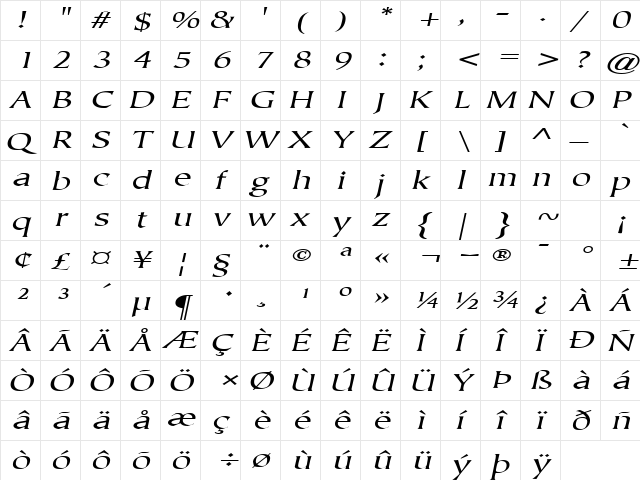
JusticeSystemExtended Italic
Design Context for JusticeSystemExtended Typeface
JusticeSystemExtended takes a measured approach to typography — its balanced proportions and neutral character make it a reliable workhorse for both digital and print work. Its italic angle brings a sense of urgency and motion to the letterforms.
Pro Tip: Use JusticeSystemExtended for emphasis, pull quotes, and subheadings where its slanted energy can add rhythm to the layout.